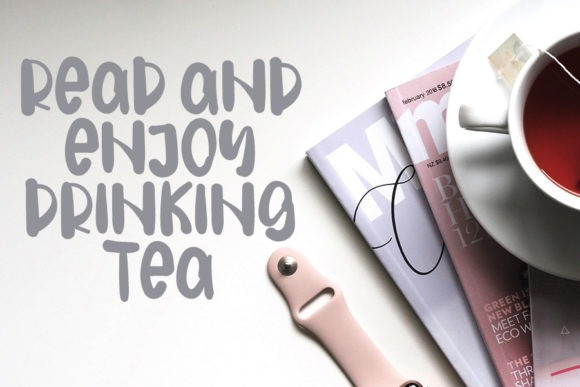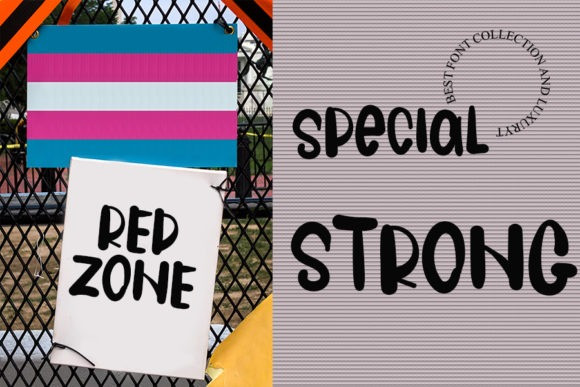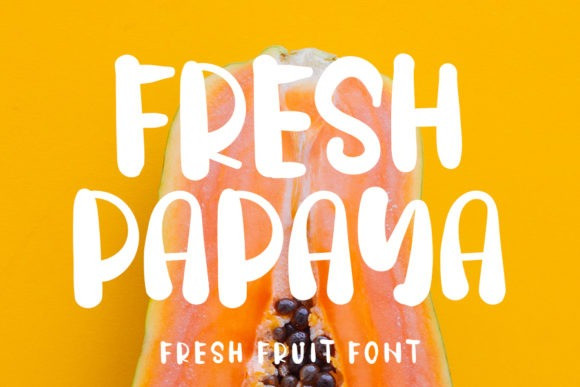
Fresh Papaya Font
Fresh Papaya Display Font is a sweet and trendy brushed display font. No matter the topic, this font will be an incredibly asset to your fonts’ library, as it has the potential to elevate any creation.